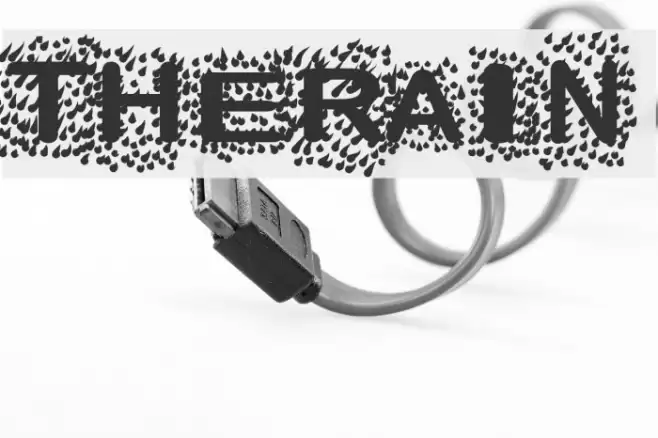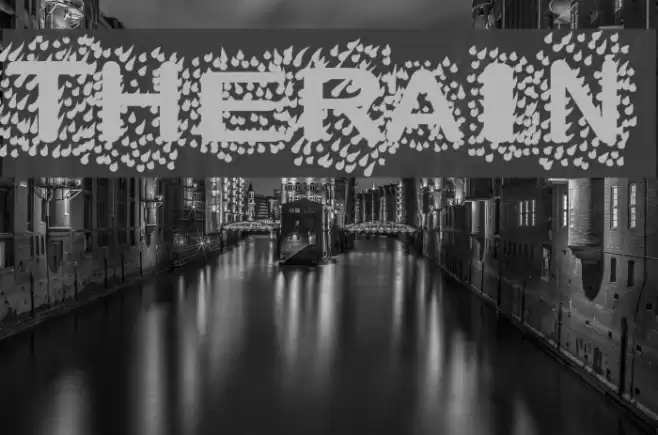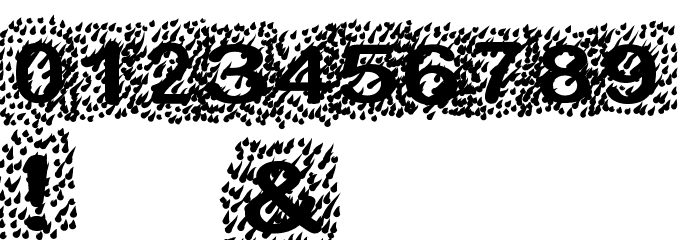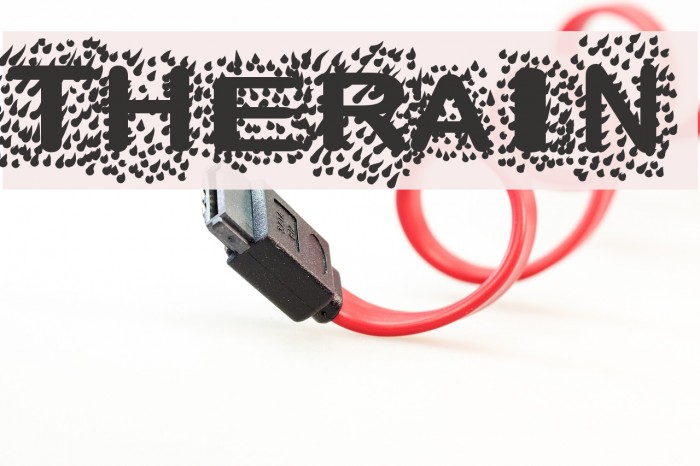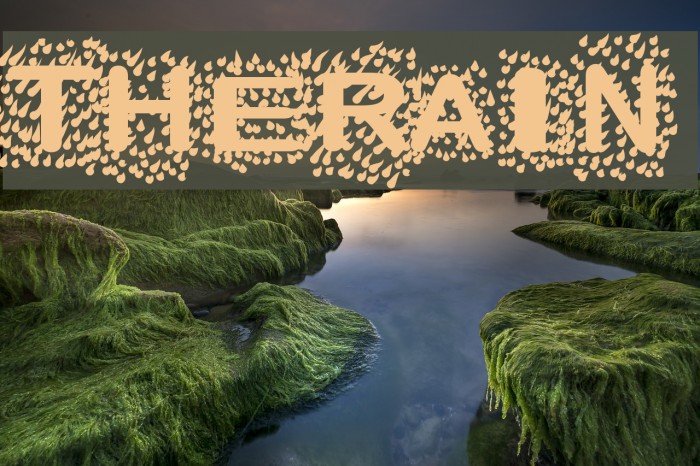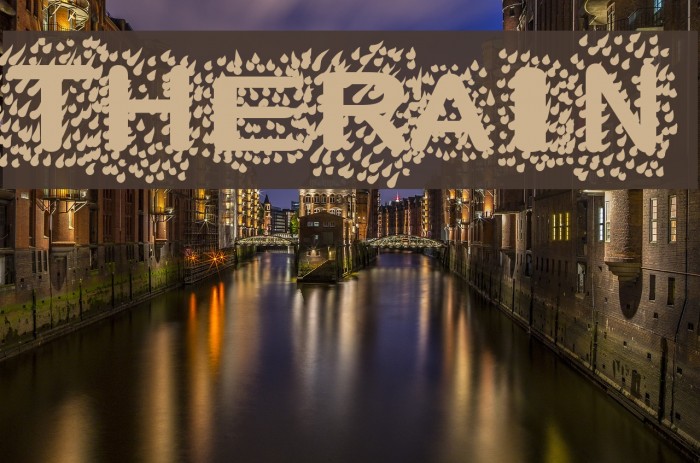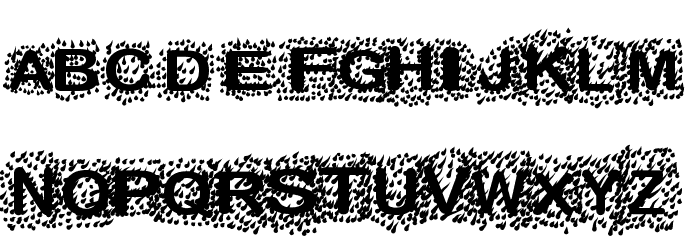
TheRain Font
TheRain Description
This font features a unique, textured design that resembles raindrops or splatters, creating a dynamic and artistic appearance. The characters are bold and filled with a pattern of small, irregular dots, giving them a distinctive and eye-catching look. The uppercase and lowercase letters maintain a consistent style, with the same textured effect applied throughout. Numbers and special characters are also included, each with the same artistic pattern. The overall effect is playful and visually engaging, making it suitable for creative and informal projects.
A bold, textured font with a raindrop-like pattern, perfect for creative designs from Uncategorized fonts.